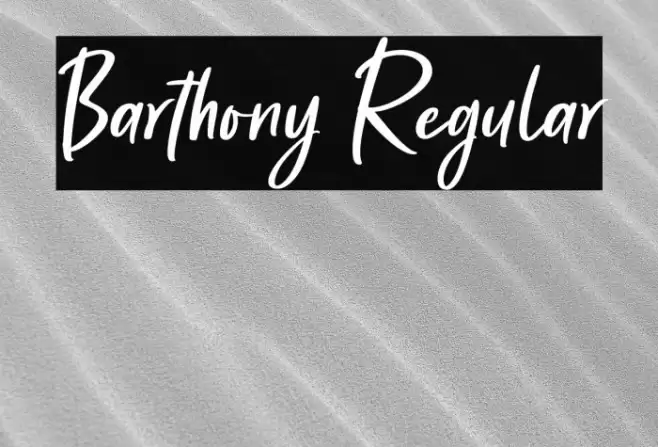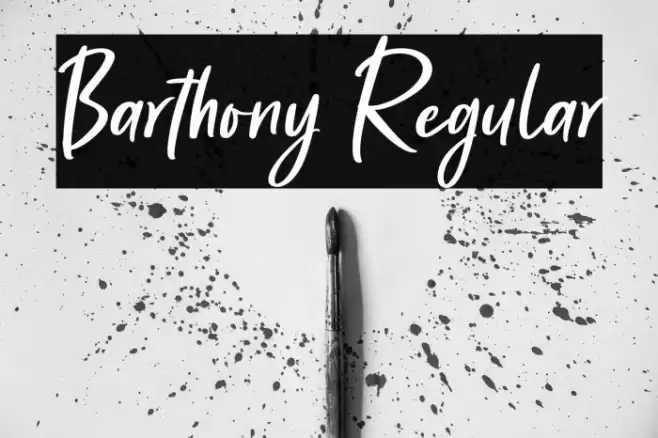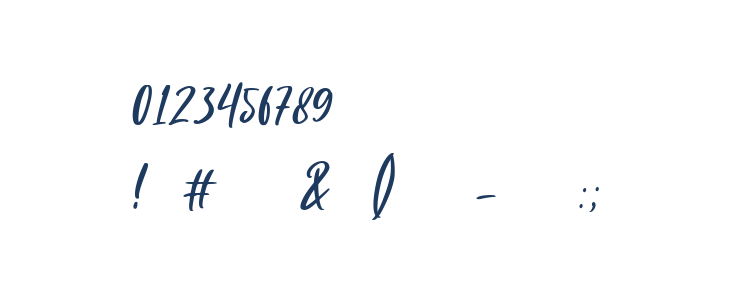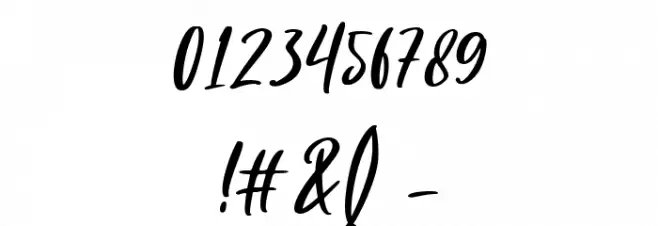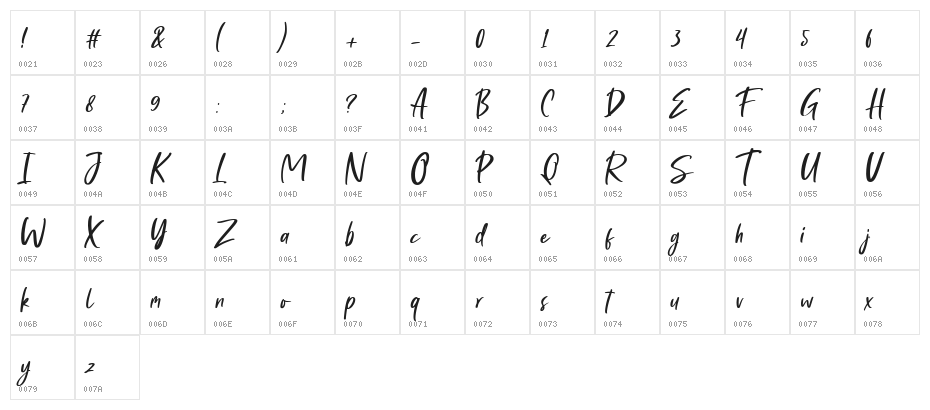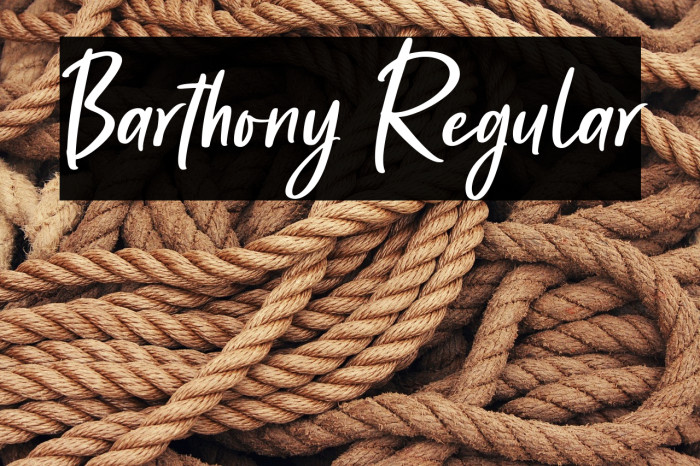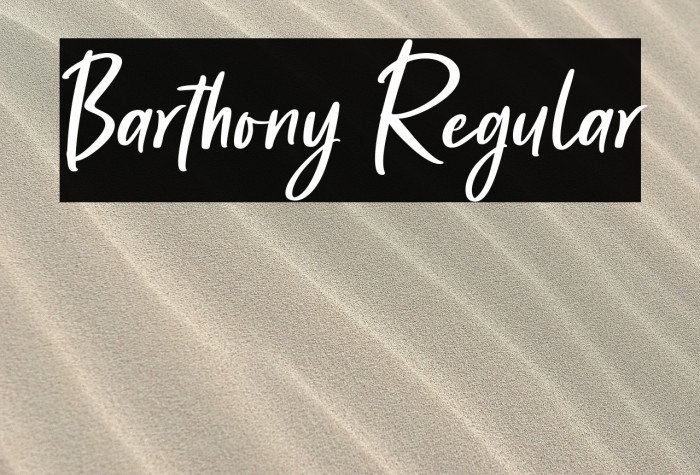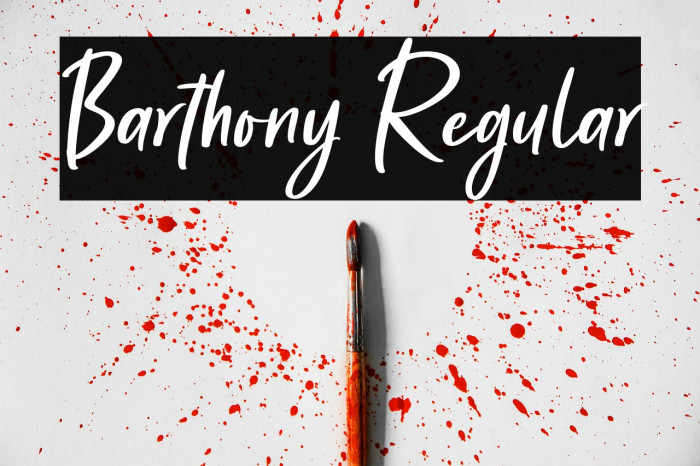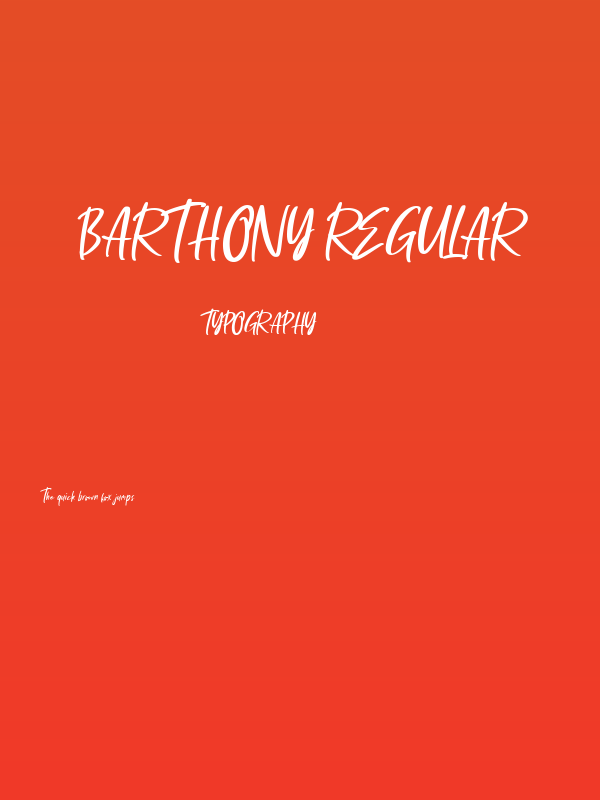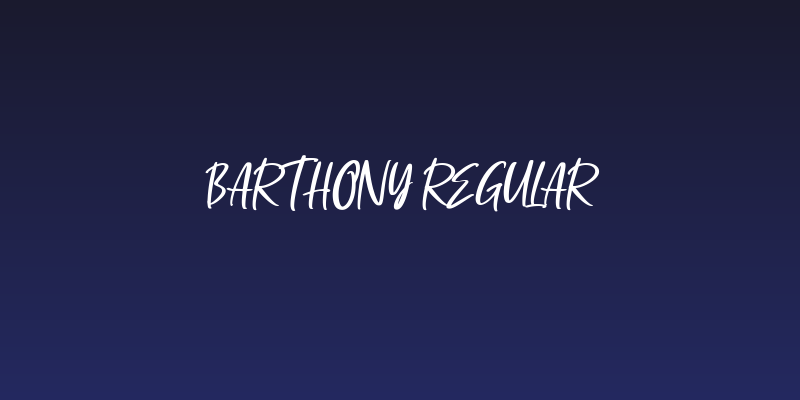
Barthony Regular Font
Barthony Regular Description
This font features a dynamic and energetic script style, characterized by its fluid and flowing letterforms. The uppercase letters are bold and expressive, with a slight slant that adds a sense of movement. The lowercase letters maintain a consistent style, complementing the uppercase with their smooth curves and elegant strokes. The numerals are clear and legible, matching the overall aesthetic of the font. Special characters are designed with the same attention to detail, ensuring a cohesive look across all glyphs. This font's handwritten appearance gives it a personal and approachable feel, making it suitable for a variety of creative applications.
A dynamic and energetic script font with fluid, flowing letterforms from Regular fonts.
- Proposed Projects: Ideal for branding, invitations, greeting cards, and social media graphics.
- Use Case: Logos, Headlines, Decorative text